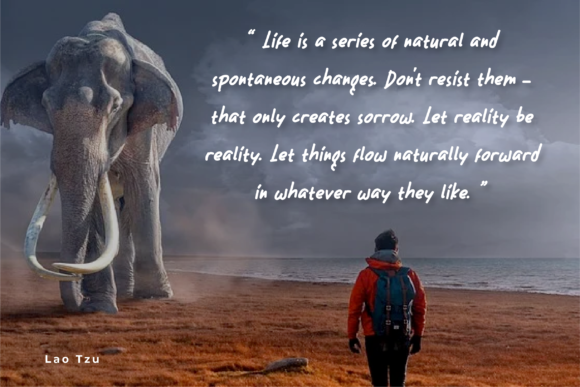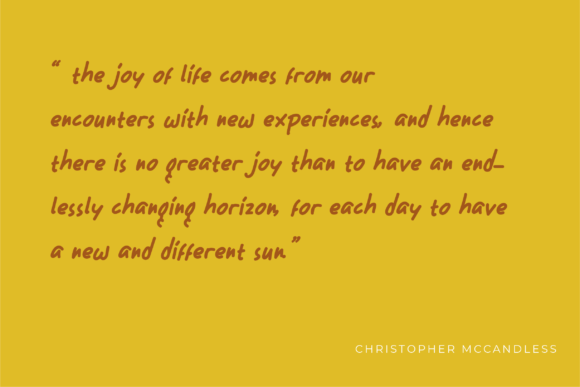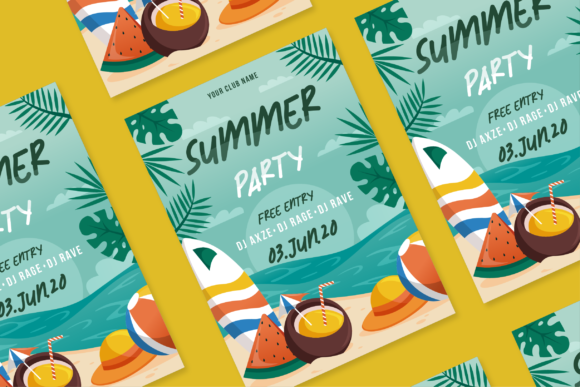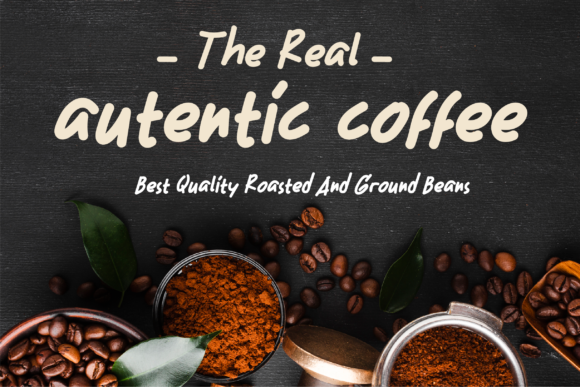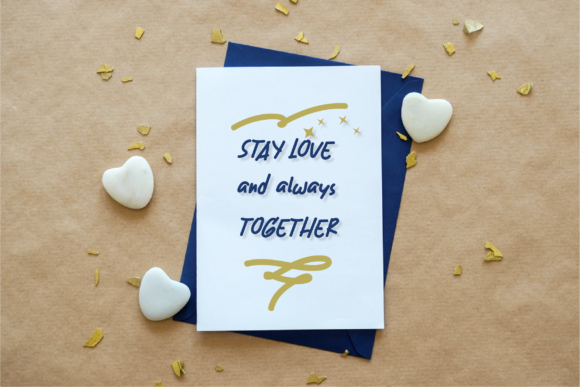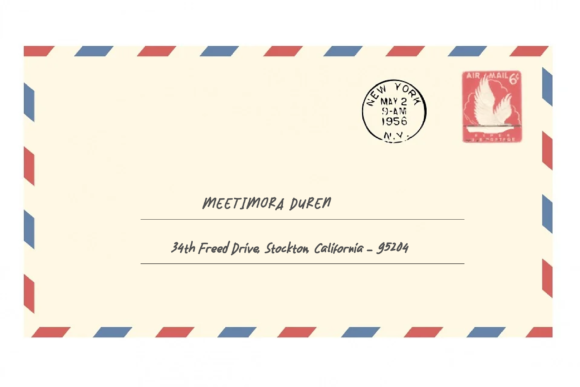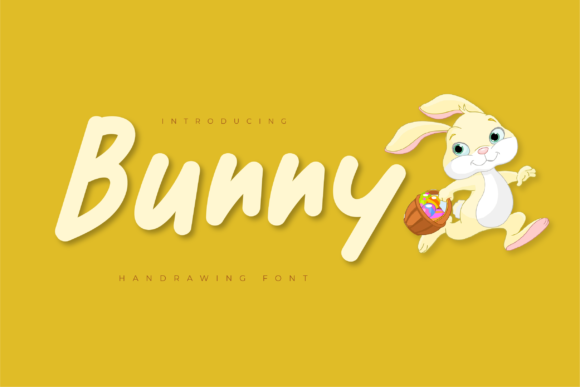
The Joy of Bunny Font: A Designer’s New Best Friend
I’ll never forget the time I was working on a project for a children’s birthday party invitation. I had the design concept all sorted out, but I was stuck on finding the perfect font to match the playful and whimsical theme. That’s when I stumbled upon Bunny Font, and let me tell you, it was love at first sight! 😍
Bunny is a cute and quirky display font that instantly adds a joyful touch to any design. Its unique charm and character make it perfect for creative projects that need a bit of personality. In this article, I’ll share my experience with Bunny Font, its features, and how to make the most of it in your designs.
An Honest Review of Bunny Font
- ✨ Unique and quirky design that adds a playful touch to any project
- ✅ Easy to read and understand, even in large and small sizes
- 💕 Perfect for designs that require a friendly and approachable tone
- 🎉 Great for titles, headings, and short paragraphs of text
While Bunny Font is an amazing addition to any design, there are a few things to keep in mind:
- 🤔 It may not be the best choice for body text or long paragraphs, as it can be a bit too playful for that purpose
- ⚠️ Some of the glyphs and special characters may not be suitable for professional or formal designs
The Story Behind Bunny Font
Bunny Font was designed with one goal in mind: to bring a little joy and whimsy to the world of typography. Its creator, a freelance designer with a passion for playful design, wanted to craft a font that would make people smile. And with its cute and quirky design, Bunny Font is sure to do just that.
| Font Name | Bunny Font |
| Author | twinletter |
Q: What is Bunny Font best used for?
A: Bunny Font is perfect for designs that require a playful and friendly tone, such as children’s party invitations, social media graphics, and blog posts.
Q: Is Bunny Font easy to read?
A: Yes, Bunny Font is designed to be easy to read and understand, even in large and small sizes.